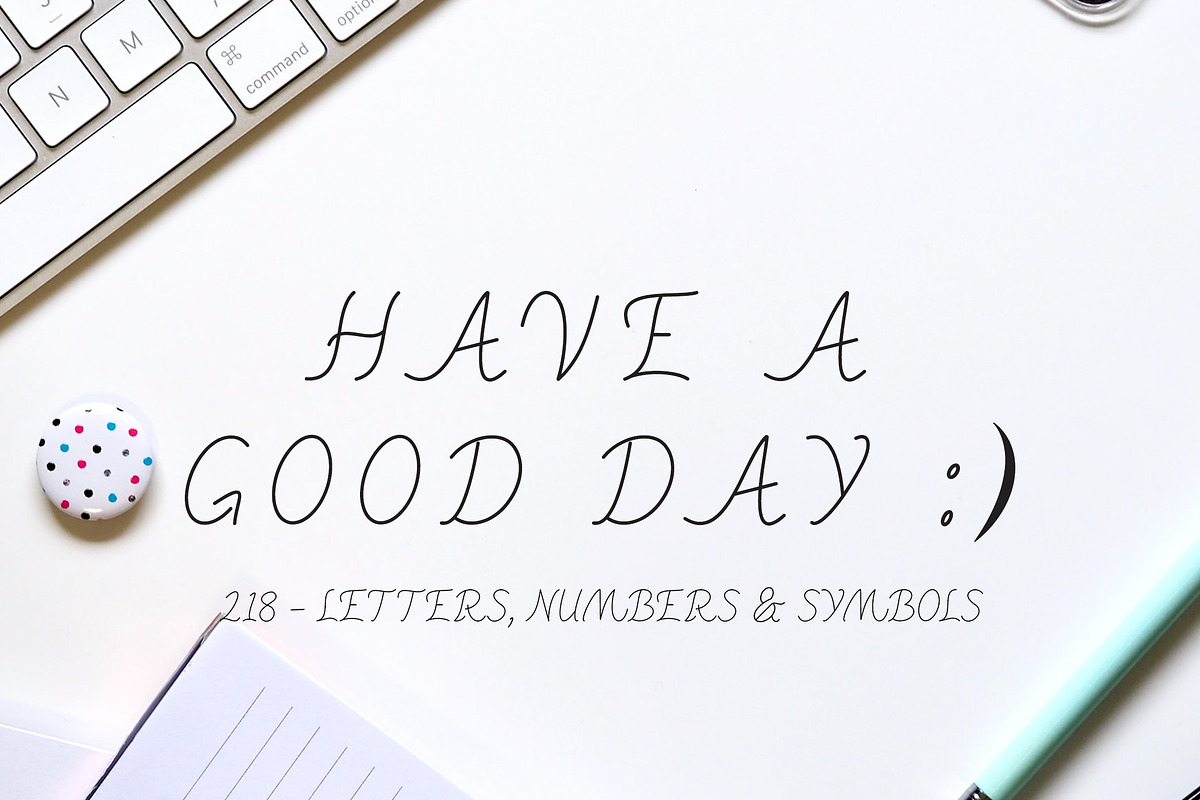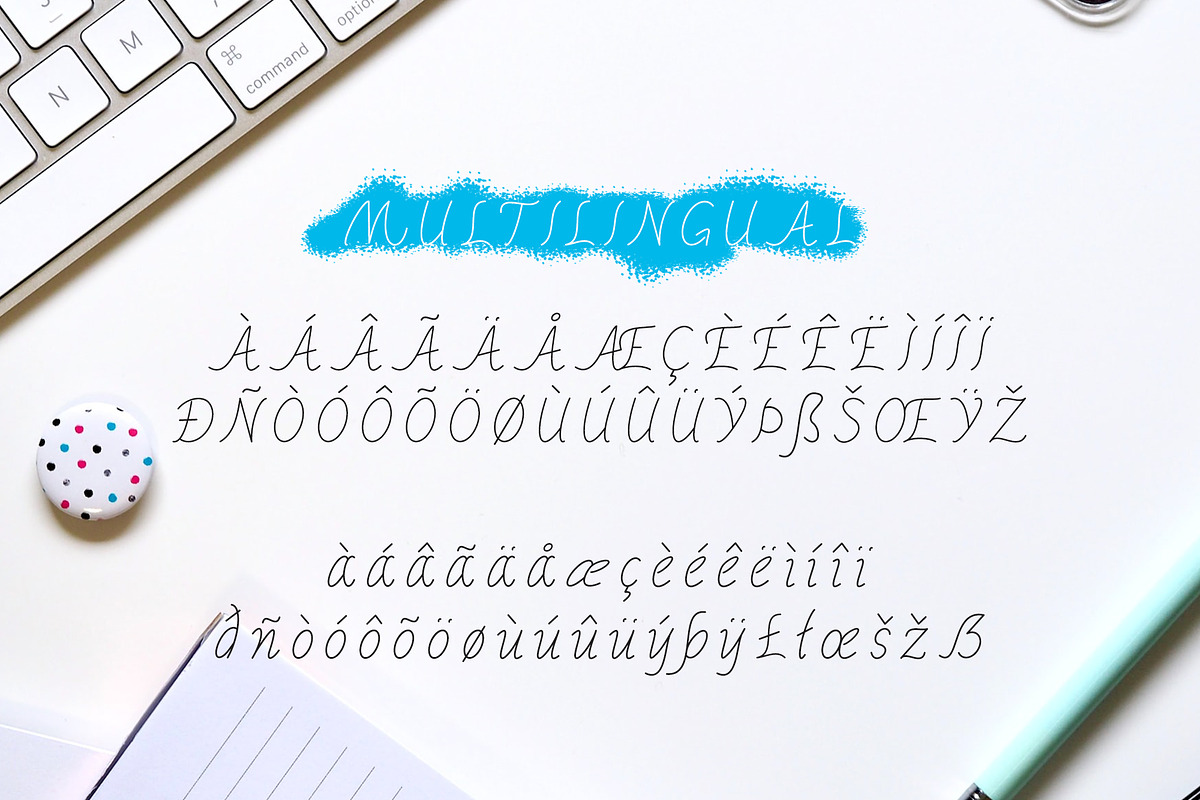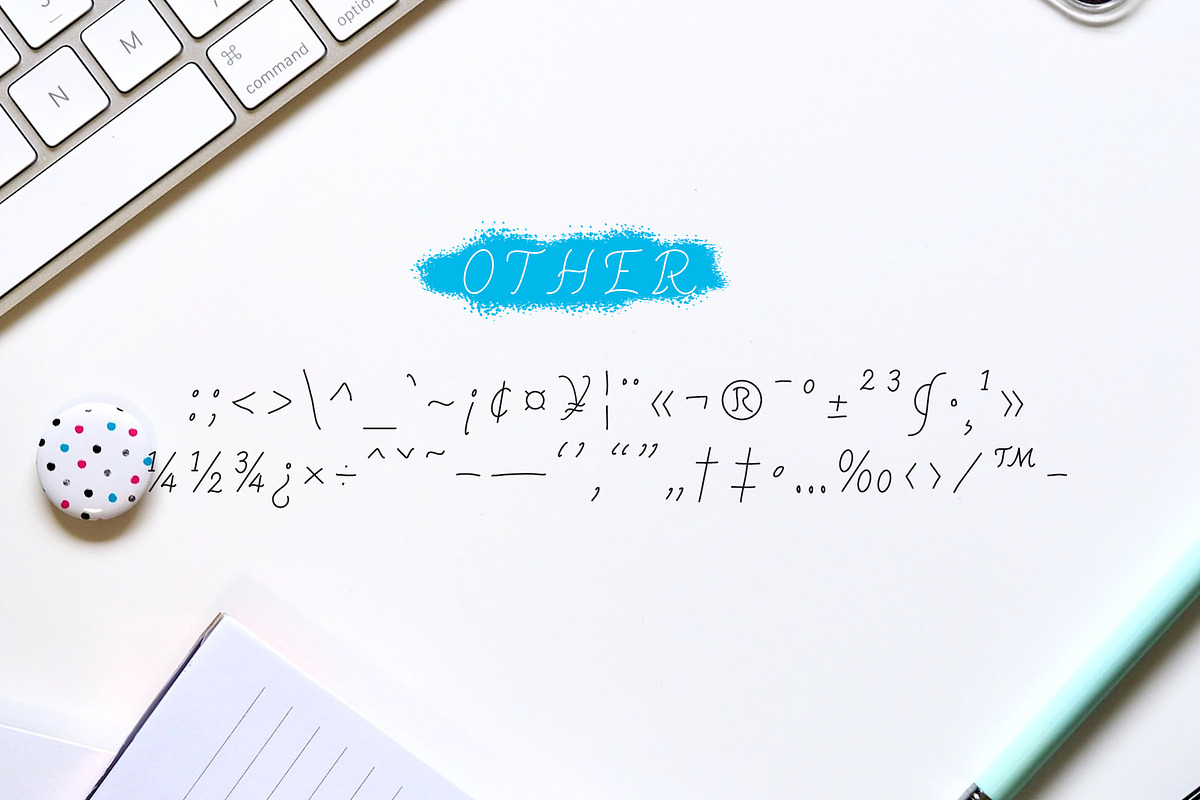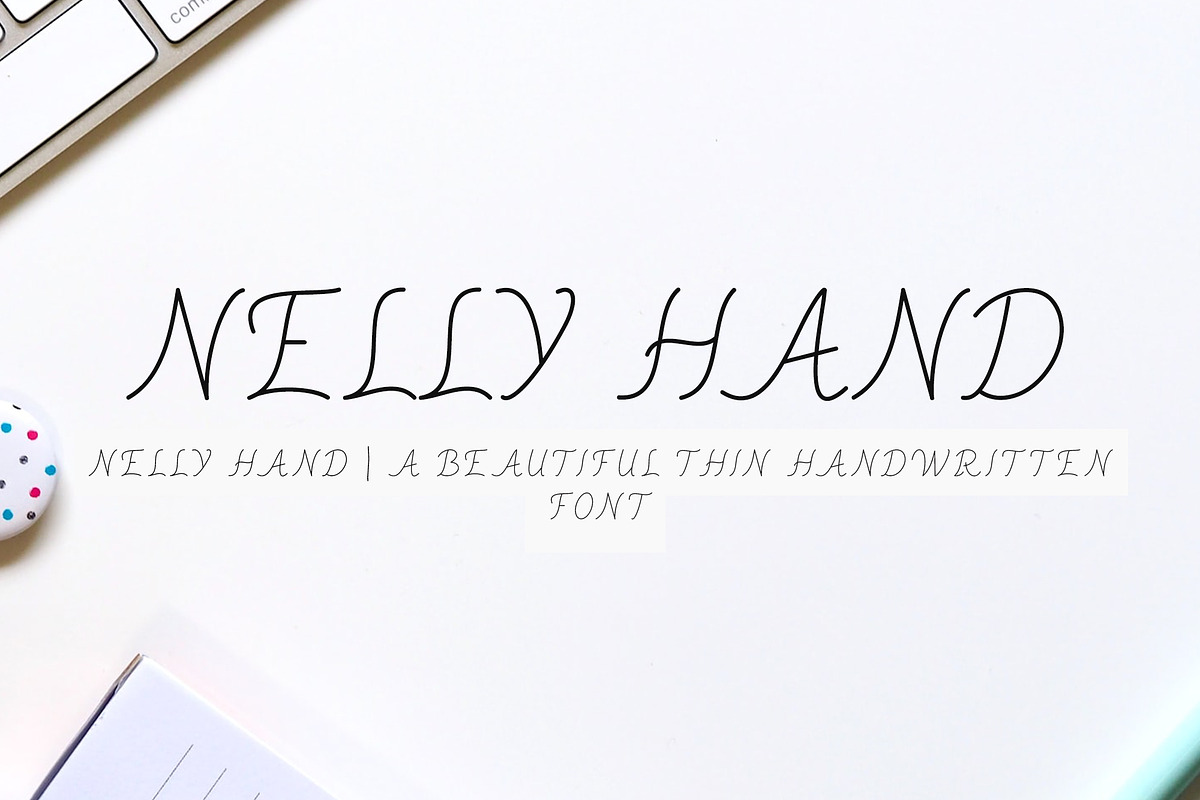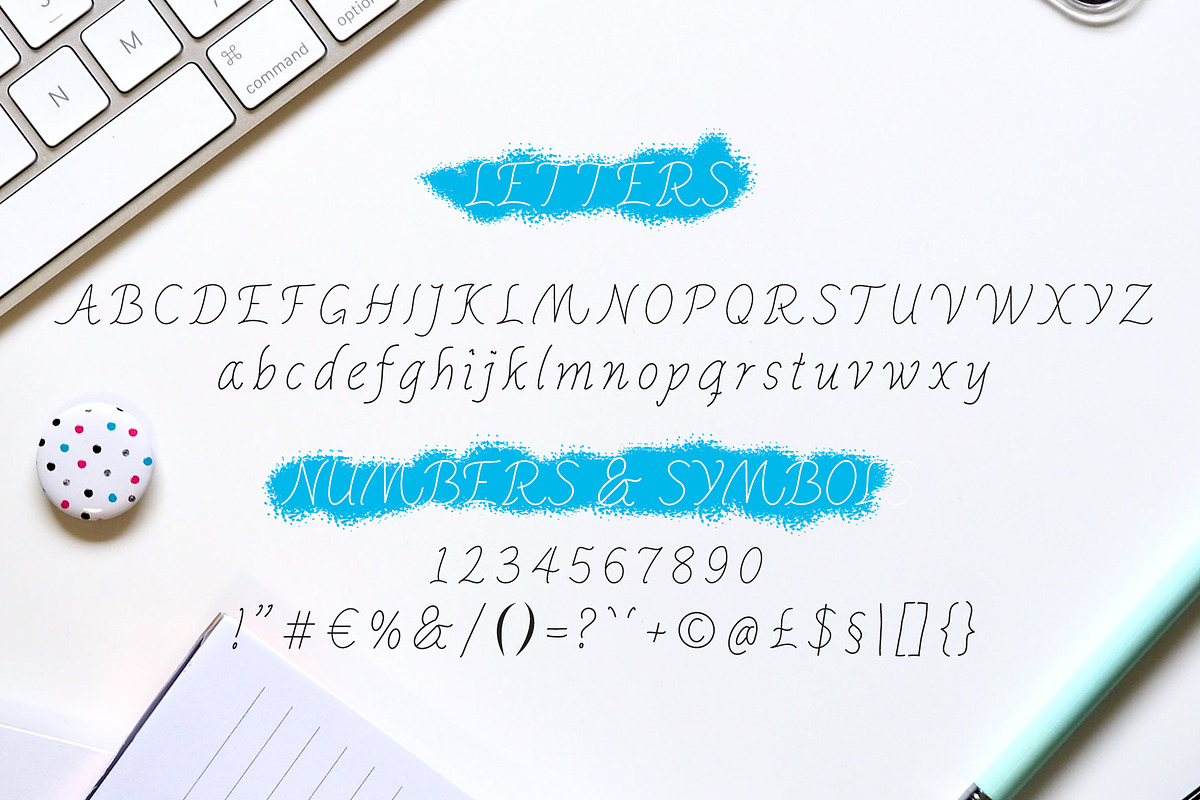
Nelly Hand - Handwritten Font
Nelly Hand - A Wavy Handwritten Font
218 Handwritten Letters, Numbers & Symbols including: å ä ö ø æ œ é † µ ü ı ß ∂ ƒ ¸ ˛ ÷ ç ‹ › ‘ ’ ‚ … – ’ * - SEE ALL IN THE PREVIEW IMAGES